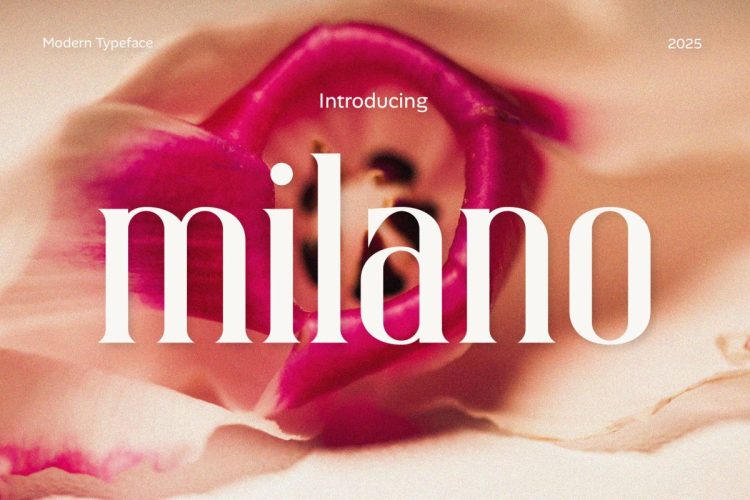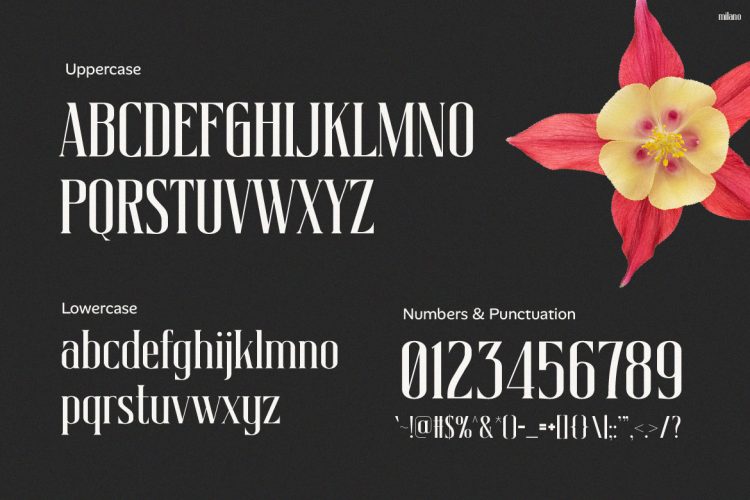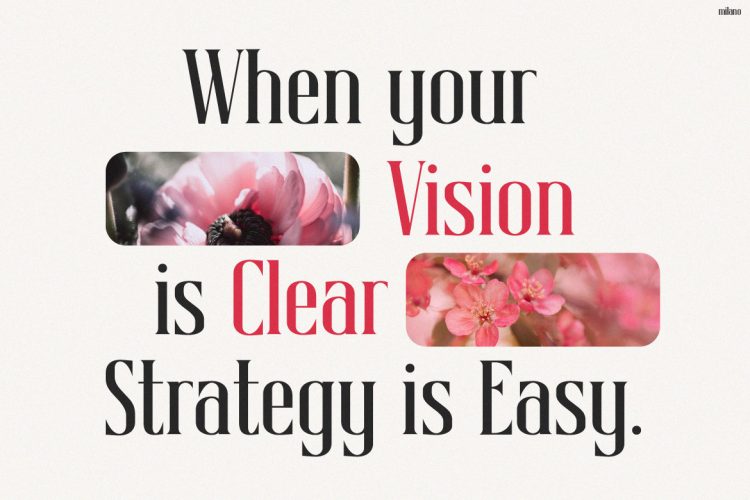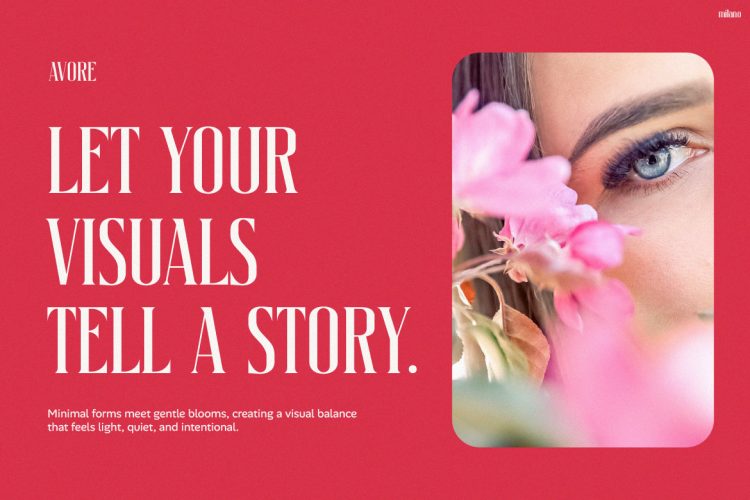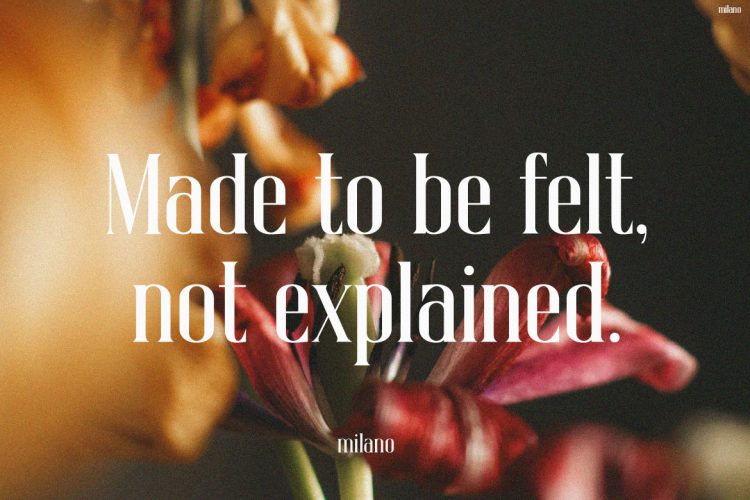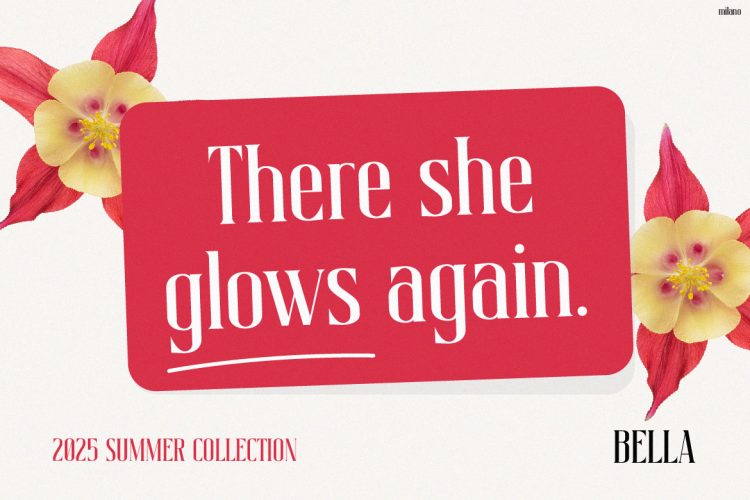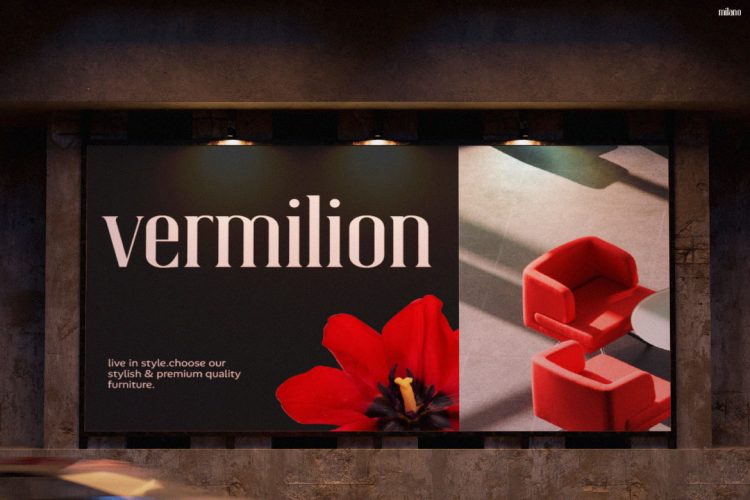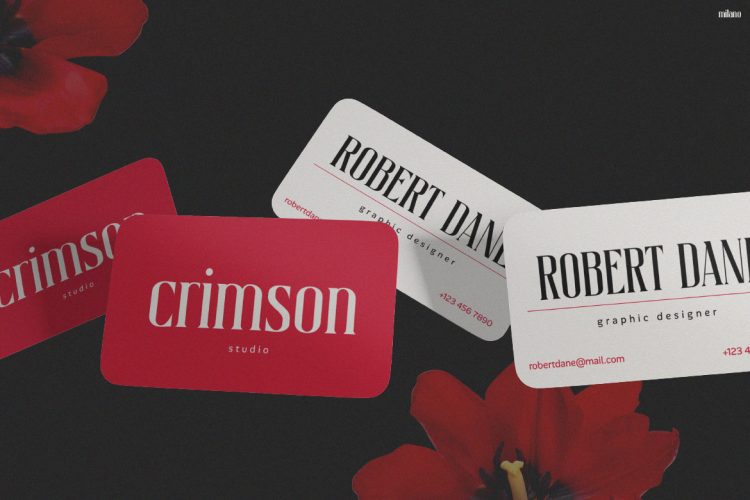
Instagram Font MILANO โ Elegant Visual Storytelling Serif
Instagram Font MILANO delivers refined elegance while also enhancing clarity in modern visual communication. From the first glance, this font creates a strong emotional connection. Moreover, its inspiration from high-fashion editorials, luxury branding, and contemporary lifestyle design gives every composition a premium and confident presence. Rather than relying on excessive decoration, MILANO uses graceful serif curves and balanced contrast. As a result, designs appear expressive, polished, and timeless.
Furthermore, MILANO stands out because it combines visual beauty with practical performance. While many decorative fonts sacrifice readability, this typeface maintains clarity across both digital and print formats. Consequently, headlines stay crisp, quotes feel poetic, and short messages carry weight without distraction. Additionally, its carefully shaped letterforms guide the readerโs eye naturally, which strengthens engagement and improves visual flow.
Instagram Font MILANO is a sophisticated serif typeface designed for modern storytelling and brand-driven visuals. In particular, its elegant proportions and high-contrast strokes make it ideal for Instagram posts, story covers, reels, and promotional graphics. Moreover, designers can apply this font confidently to posters, invitations, packaging, editorials, and product campaigns. Meanwhile, its clean structure allows smooth pairing with minimalist sans-serif fonts. Therefore, creators can build clear hierarchy, strong layouts, and memorable compositions with ease.
In addition, MILANO adapts well to various moods. Whether used for romantic visuals, luxury branding, or bold marketing statements, the font maintains consistency and authority. As a result, brands achieve a cohesive and recognizable identity across platforms.
Who Is It For?
Instagram Font MILANO suits fashion labels, beauty brands, lifestyle influencers, wedding designers, and creative studios. Additionally, entrepreneurs and small business owners benefit from its premium feel when presenting promotions and announcements. Furthermore, content creators and marketers can use MILANO to enhance storytelling, strengthen brand trust, and elevate visual impact. In contrast to generic fonts, MILANO adds personality and emotional depth.
Ultimately, Instagram Font MILANO acts as a visual signature that communicates elegance and confidence. Therefore, choosing this font helps transform ordinary content into refined visual stories. Consequently, your brand gains stronger presence, higher engagement, and lasting appeal that encourages audiences to connect and convert.